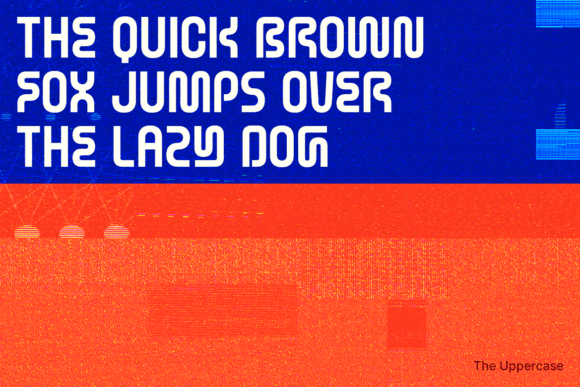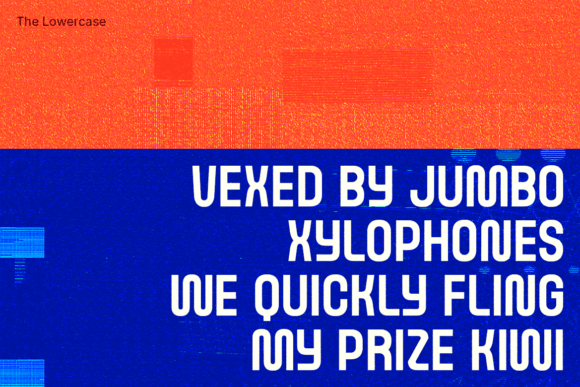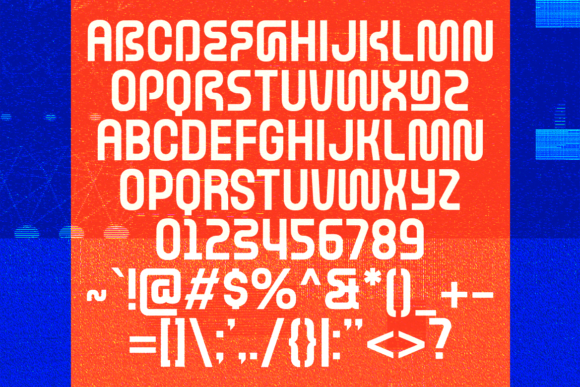
Introduction to Mensaga Font
Remember the thrill of discovering a hidden corner in your favorite video game, where neon lights danced across the screen and pixelated graphics seemed to pulse with an otherworldly energy? For many of us, those moments sparked a sense of wonder and curiosity, transporting us to a world of boundless possibility. Now, with the Mensaga Font, you can tap into that same nostalgic magic in your modern designs.
As a high-quality design resource, the Mensaga Font embodies the essence of retro-futurism, capturing the essence of a bygone era when the future seemed limitless and anything was possible. Whether you’re working on a creative project that requires a touch of nostalgia or a dash of futuristic flair, Mensaga Font is the perfect tool to help you achieve your vision.
Key Features of Mensaga Font
- High-quality design resource ideal for creative projects, including logos, graphics, and typography.
- Unique, modern design with a transparent background, making it easy to overlay on any image or color.
- Perfect for designers and artists seeking a modern, high-quality font for their creative projects.
- Comes with a full character set, including uppercase and lowercase letters, numbers, and punctuation marks.
Honest Review: Mensaga Font
As a designer, I’m always on the lookout for high-quality design resources to elevate my creative projects. Recently, I stumbled upon the Mensaga Font, and I’m excited to share my honest review with you.
- ✨ Unique and stylish design: The Mensaga Font boasts a distinctive, elegant look that’s perfect for adding a touch of sophistication to your designs.
- ✨ Transparent background: This feature makes it easy to use the font on any background, ensuring seamless integration with your creative project.
- ⚠️ Limited font sizes: The font appears to be optimized for a specific range of font sizes, which may not be ideal for larger or smaller text.
- ⚠️ Not ideal for complex typography: While the font is great for simple text, it may not be the best choice for intricate, multi-layered typography.
Overall, I’m impressed with the Mensaga Font’s unique design and versatility. While it may have some limitations, it’s a great addition to any designer’s toolkit, and I’d definitely recommend it for simple creative projects.
For the best results, use Mensaga Font in conjunction with other high-quality design elements. Experiment with different font sizes, colors, and styles to find the perfect combination for your creative project.
Mensaga Font is perfect for logos, branding materials, presentations, and documents. Its high-quality design and transparent background make it a versatile design resource for any creative project.